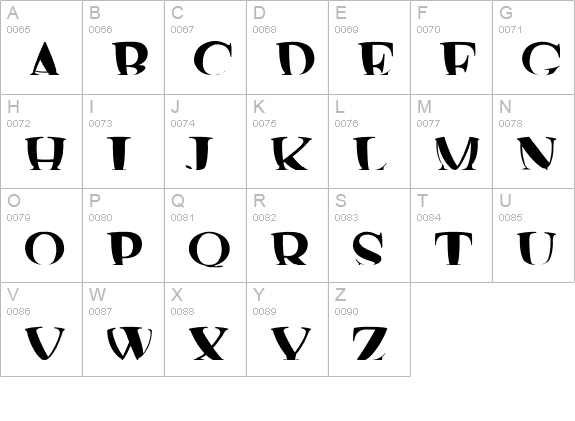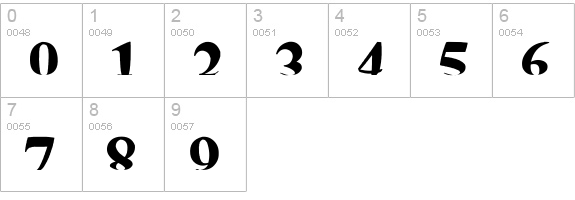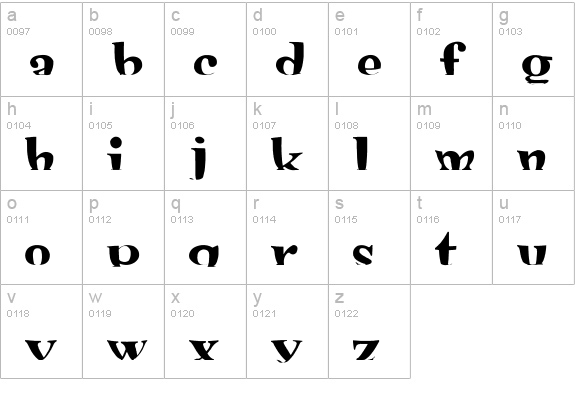
mashy Shona Font Details
Introducing the captivating and unique mashy Shona font, a true gem for all typography enthusiasts. With its intricate design and artistic flair, this font is sure to leave a lasting impression on any project it graces. The mashy Shona font effortlessly blends traditional elements with a modern twist, resulting in a visually stunning and culturally rich typeface. What sets this font apart is not just its remarkable aesthetics, but also the fact that it is available to download for free at FontsMarket.com. Yes, you read that right - this extraordinary font can be yours without any cost. FontsMarket.com understands the importance of accessibility and creative freedom, which is why they offer this exquisite font for free, allowing designers, artists, and individuals alike to effortlessly enhance their projects without breaking the bank. Whether you're working on a branding project, creating eye-catching posters, designing captivating website headers, or simply looking to add a touch of elegance to your personal artwork, the mashy Shona font is the perfect choice. Its versatile nature ensures it can be used across various mediums, making it a versatile addition to any designer's toolkit. Unleash your creativity and let the mashy Shona font transport your audience to a world where artistry meets sophistication. Download this font for free at FontsMarket.com today and embark on a typographic journey that is bound to leave a lasting impression.